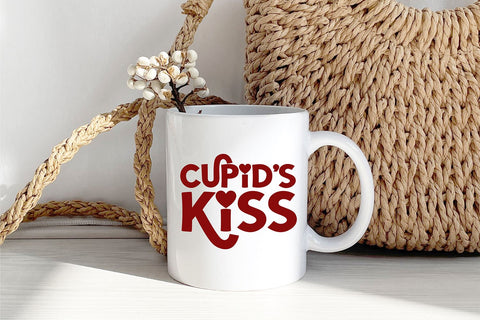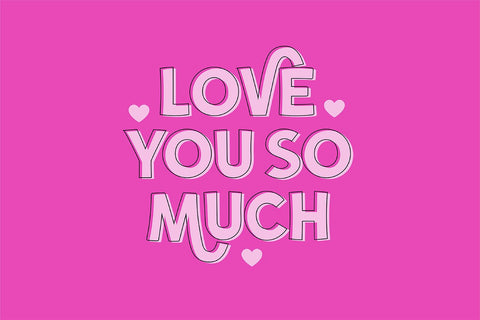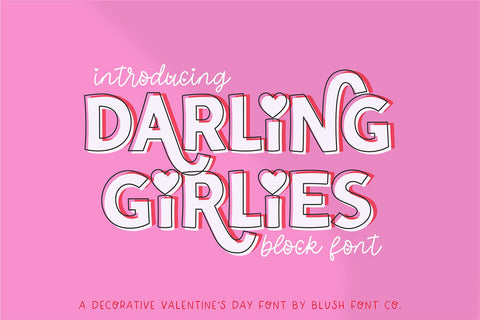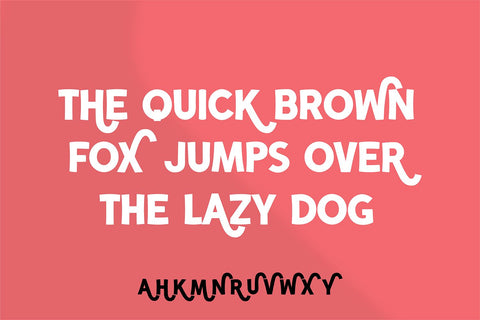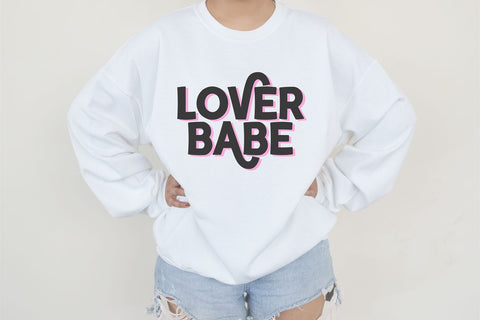
Darling Girlies Chunky Valentine Font
DARLING GIRLIES Valentine's Day Block font
This font was made specifically for your Valentine's/Wedding projects. Use it for Valentine's cards, crafts for decor, invitations, and more!